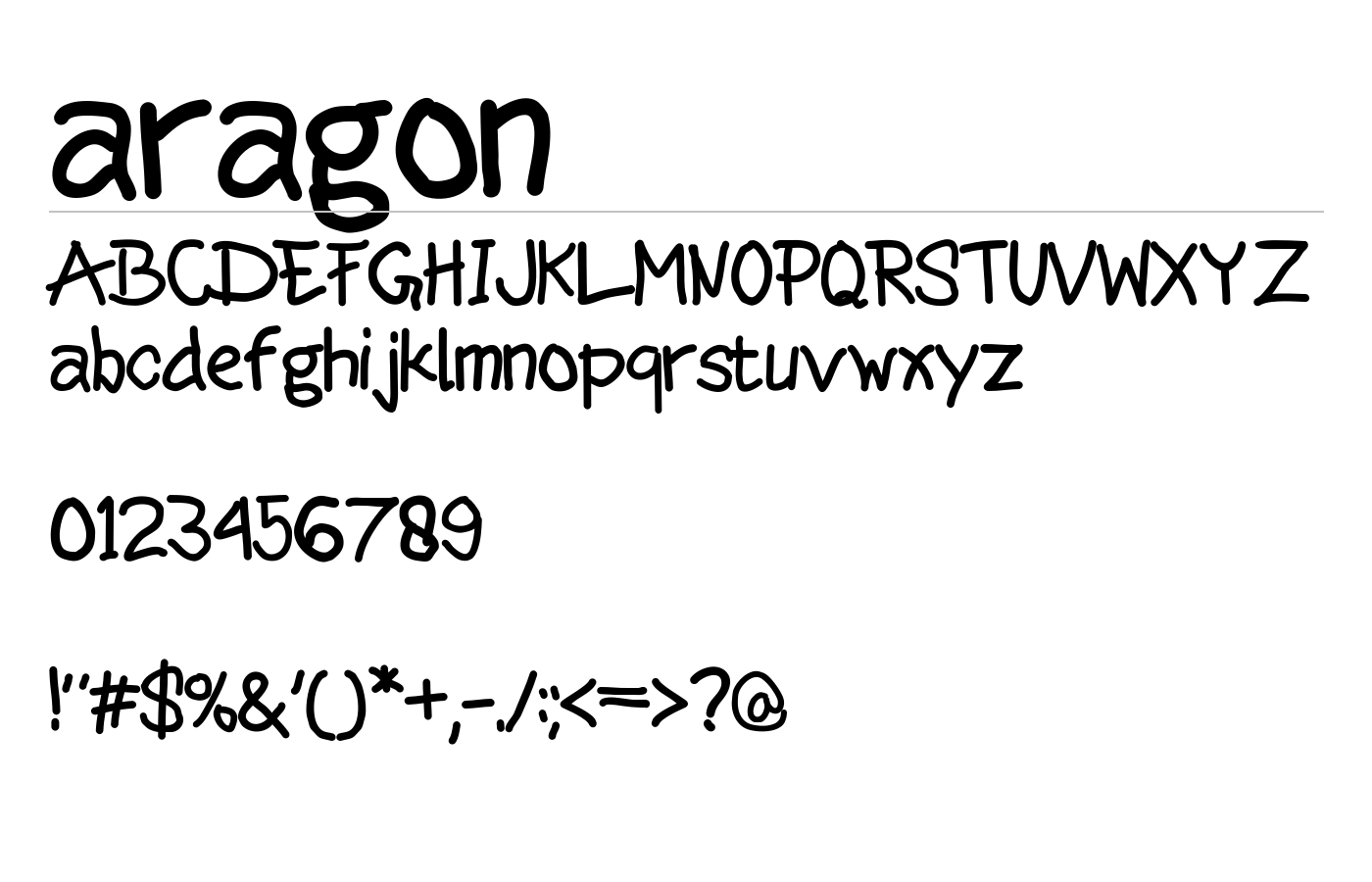
Aragon is a playful and informal sans serif font with a hand-drawn feel, featuring irregular, slightly wavy letterforms that add a friendly and approachable character. Its moderate weight, normal width, and consistent stroke give it good readability while maintaining a casual, whimsical style, making it ideal for creative projects, children’s materials, or branding that seeks a personal touch. This font shines in contexts where a laid-back, fun, and inviting tone is desired, such as packaging, posters, or websites looking to convey warmth and personality.
aragon Font
About aragon Font